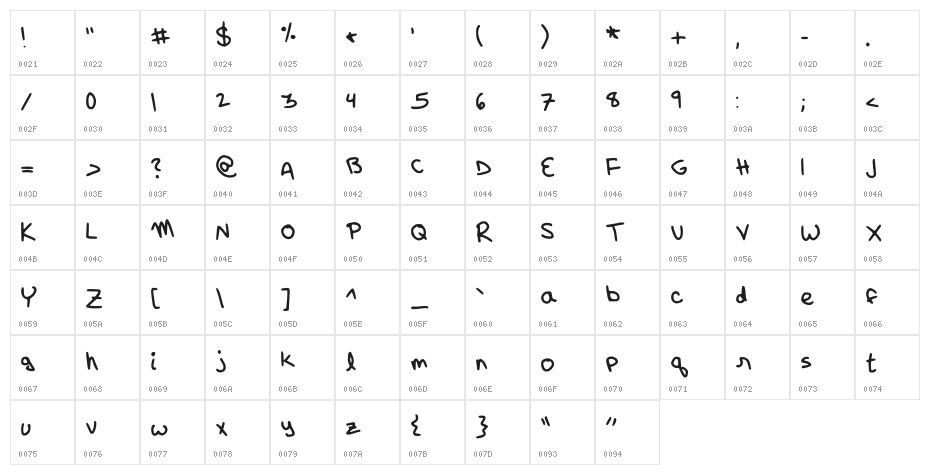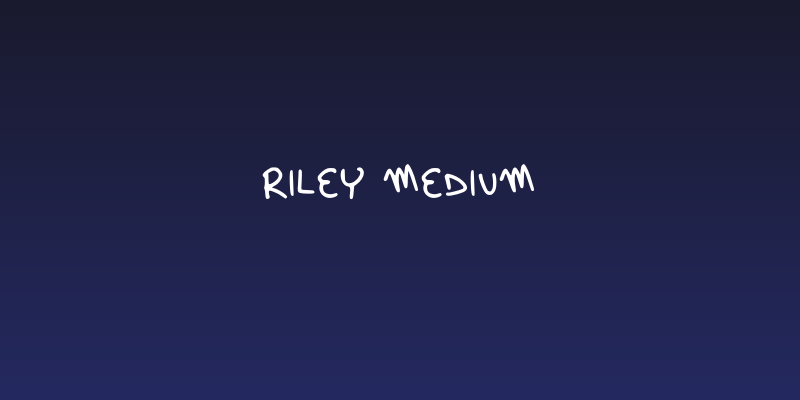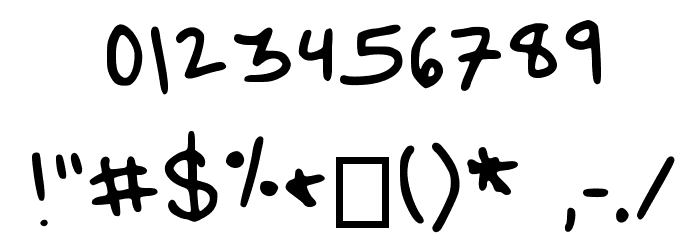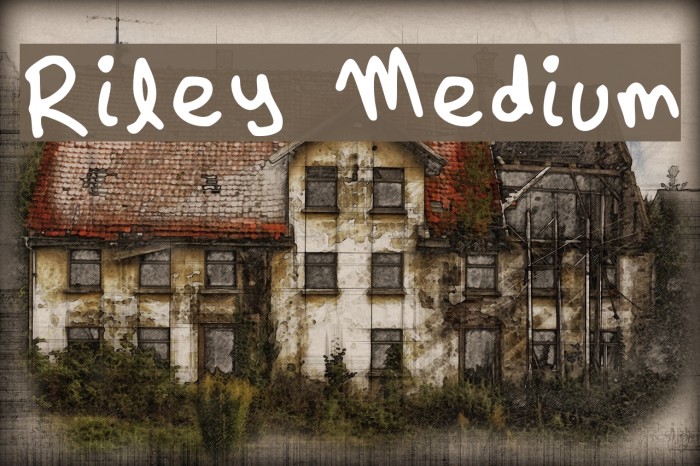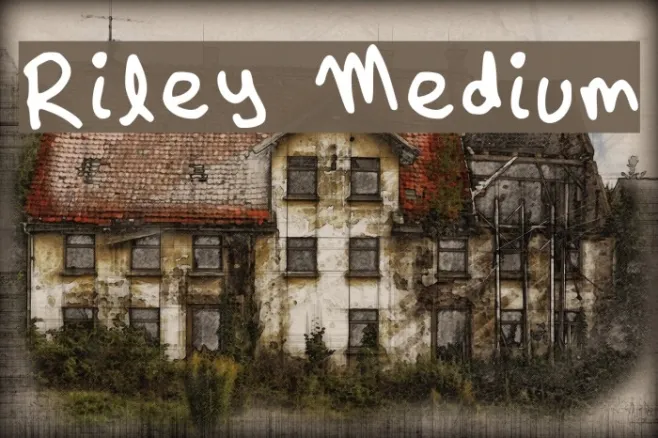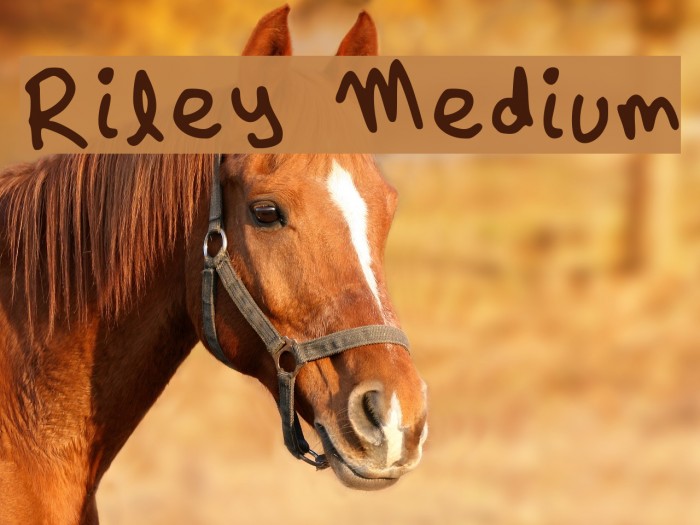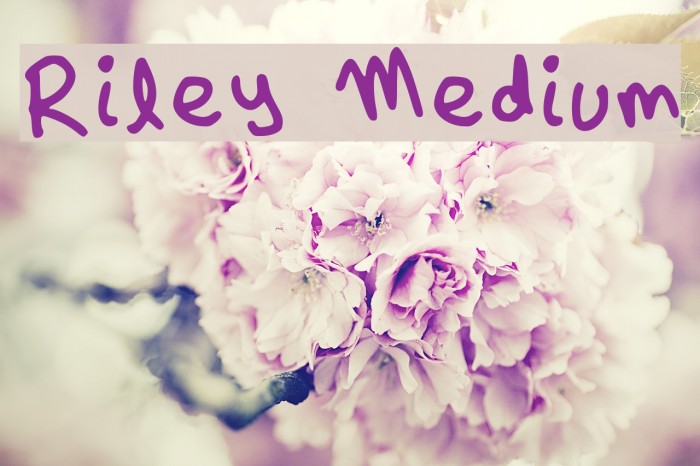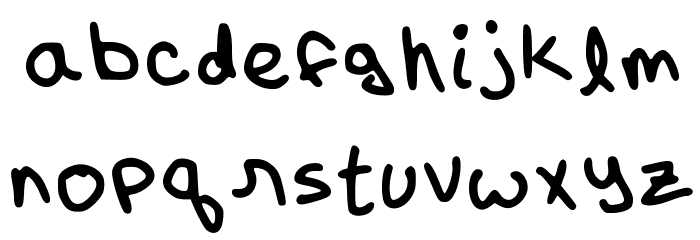
Riley Medium Font
Riley Medium Description
This playful and informal font features a handwritten style with a casual, friendly appearance. The letters are slightly irregular, giving it a natural and organic feel. The strokes are consistent in thickness, providing a uniform look across all characters. The font includes both uppercase and lowercase letters, numbers, and a variety of special characters, making it versatile for different uses. Its whimsical nature makes it suitable for projects that require a personal touch or a fun, approachable vibe.
RILEY-MEDIUM UPPERCASE
RILEY-MEDIUM LOWERCASE
RILEY-MEDIUM OTHER CHARS
| Use Case | Headlines, Informal text, Personal projects |
| Proposed Projects | Ideal for children's books, greeting cards, personal blogs, and informal branding. |